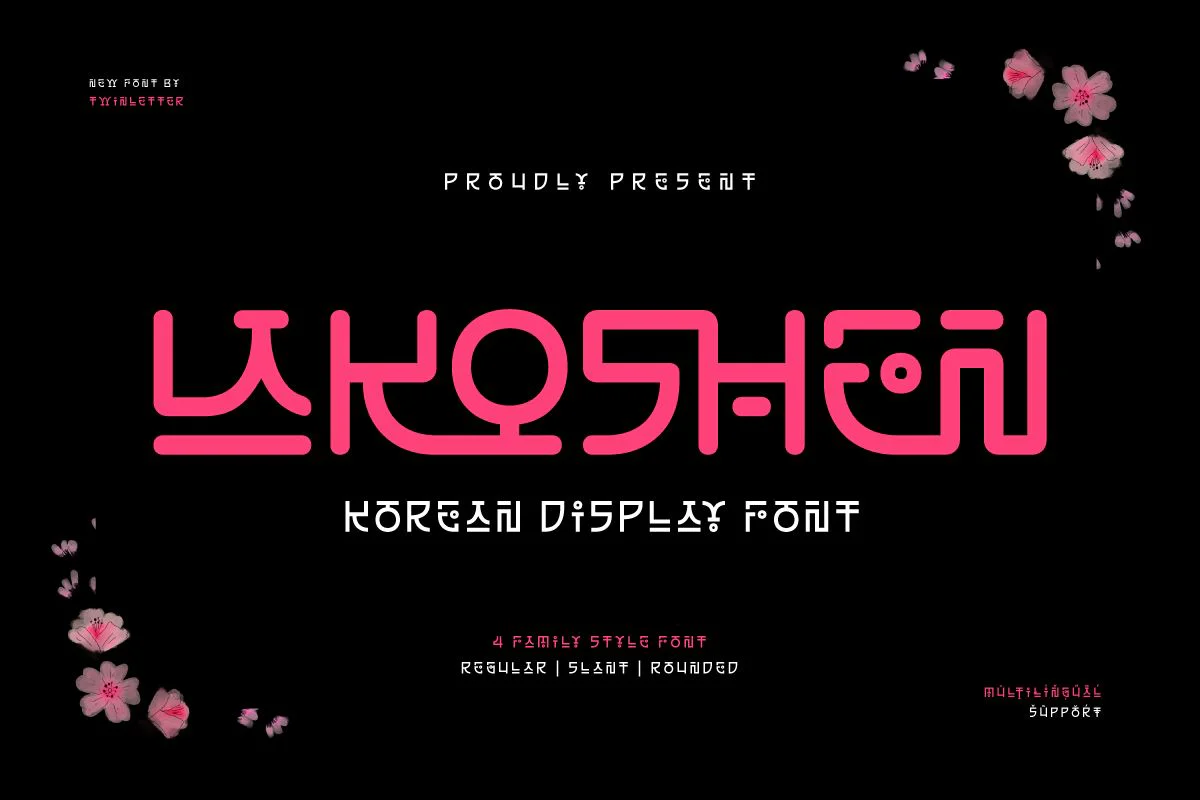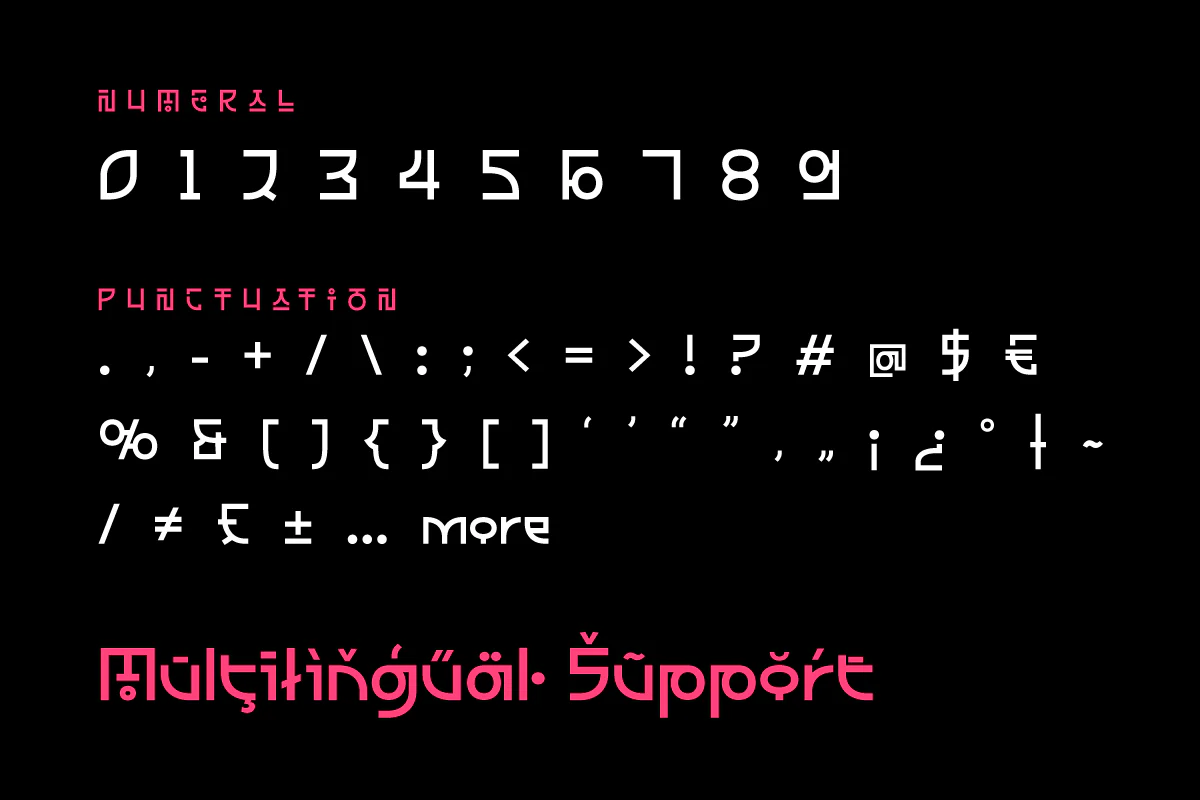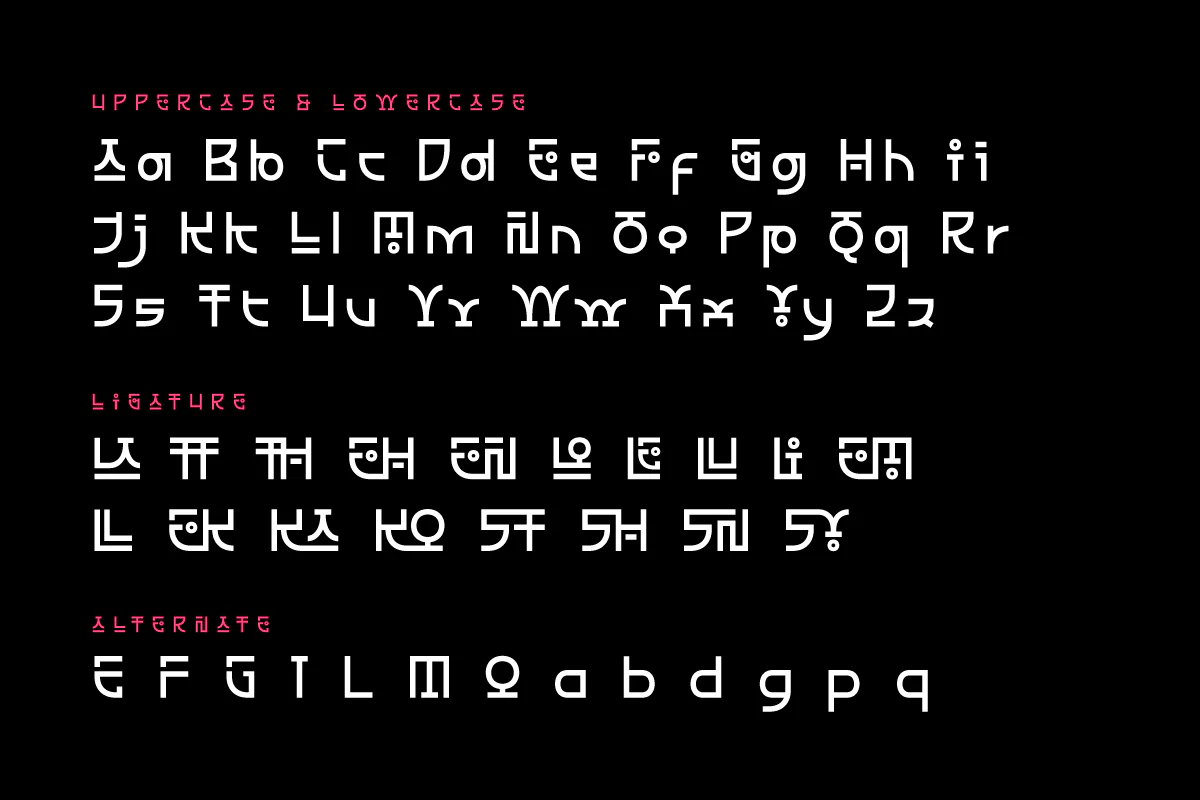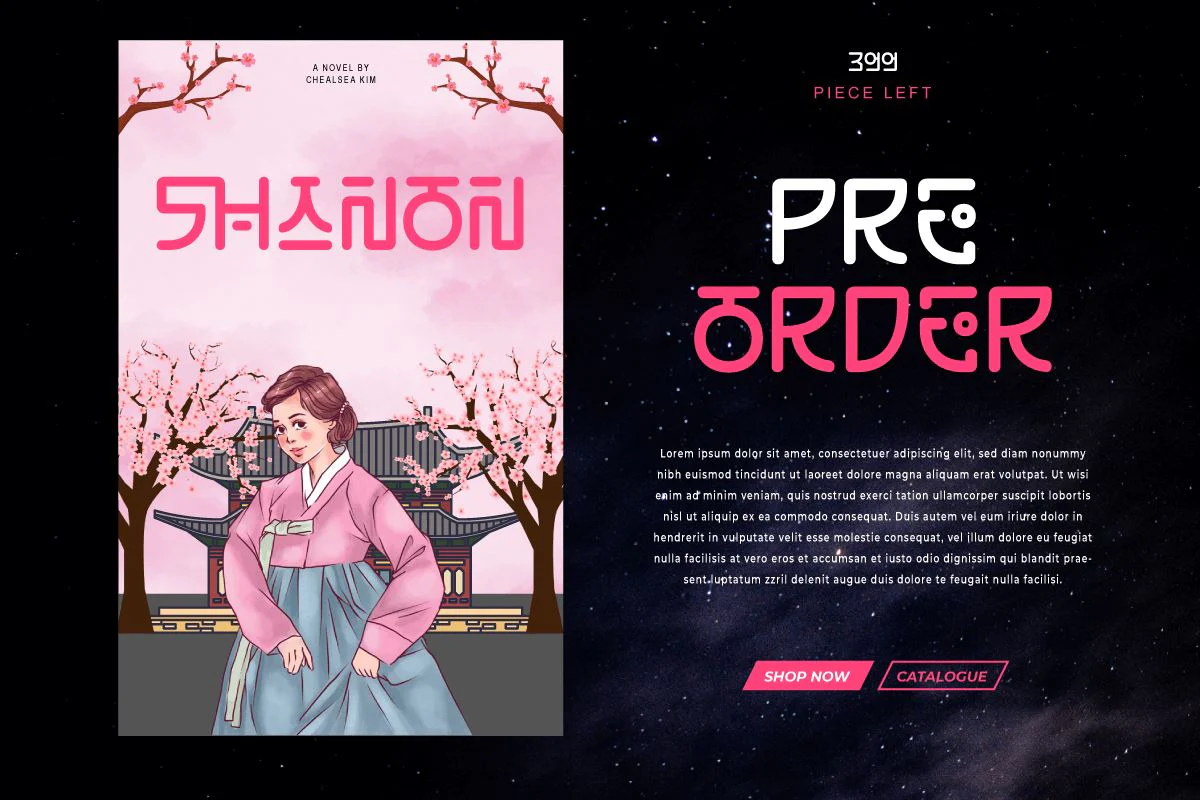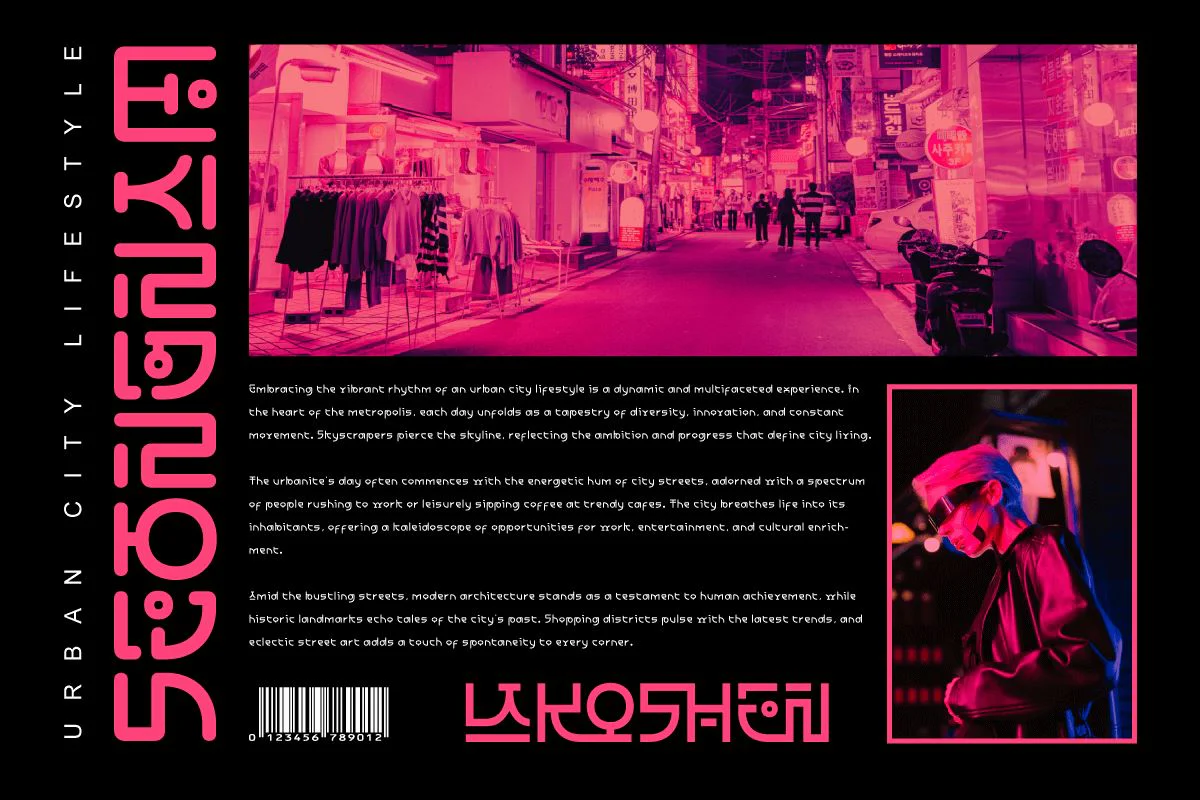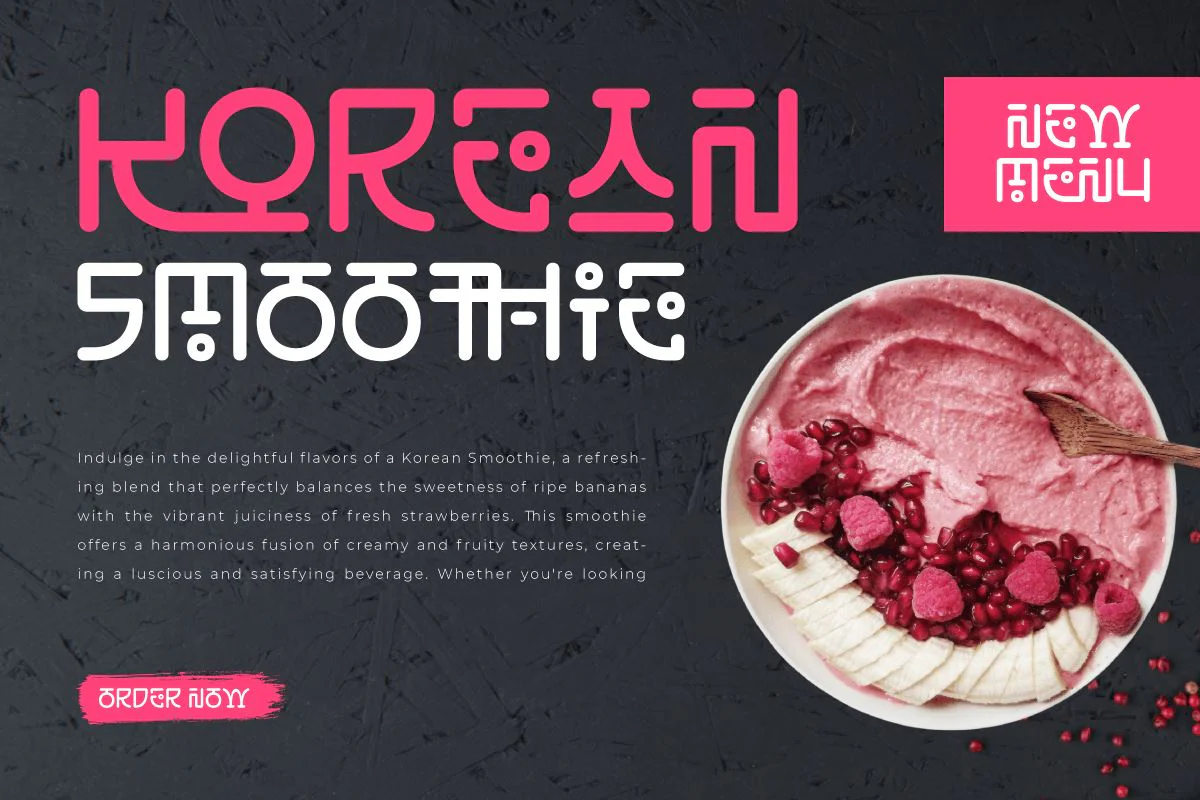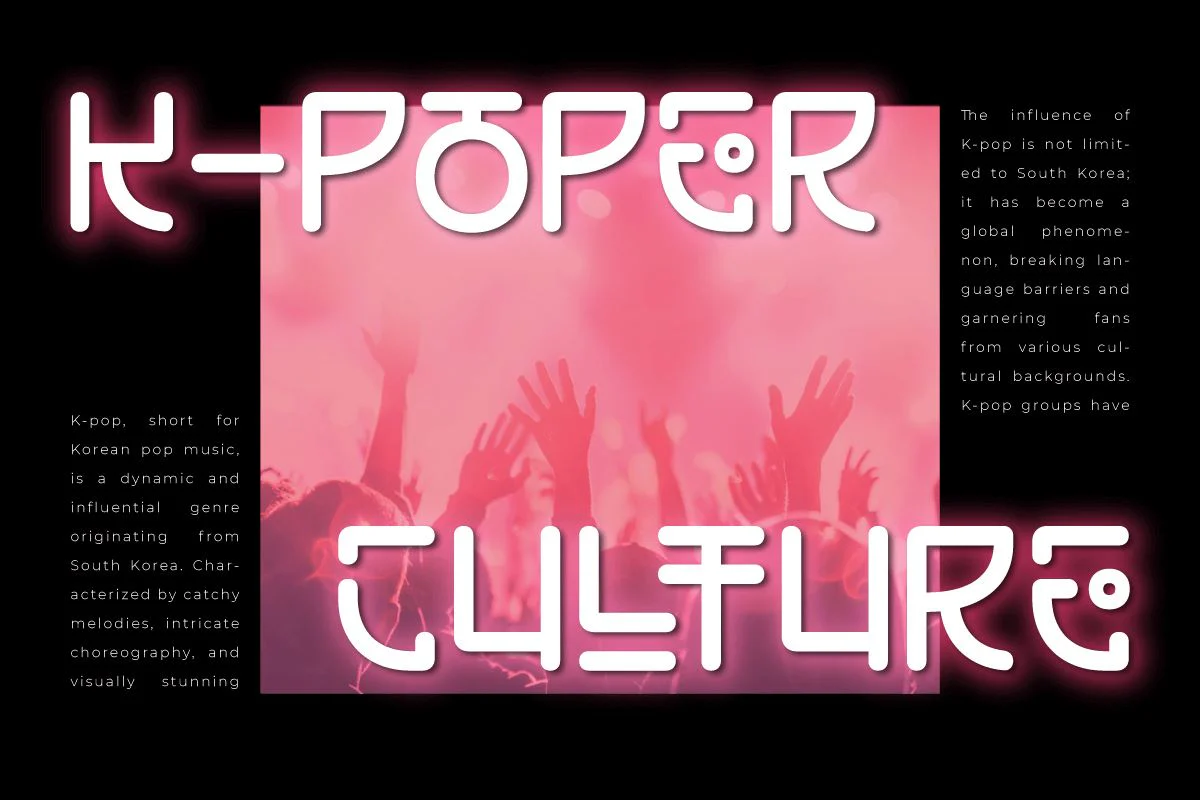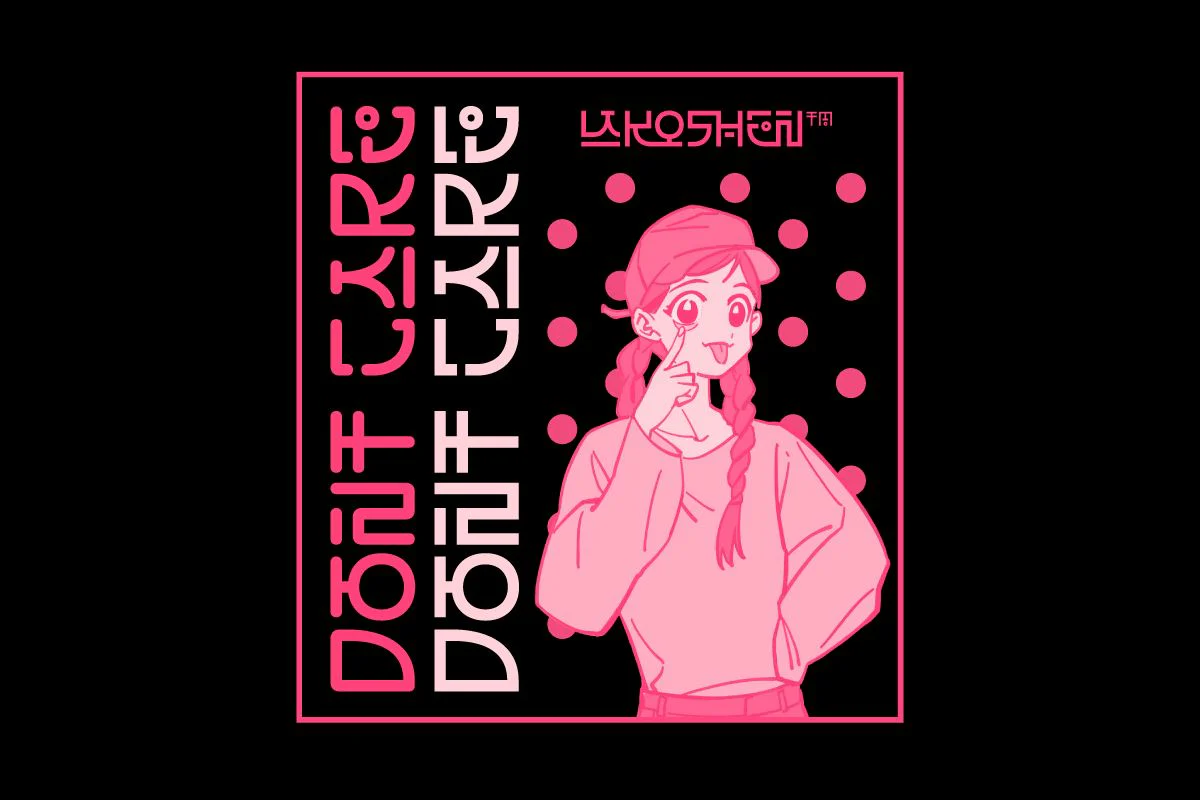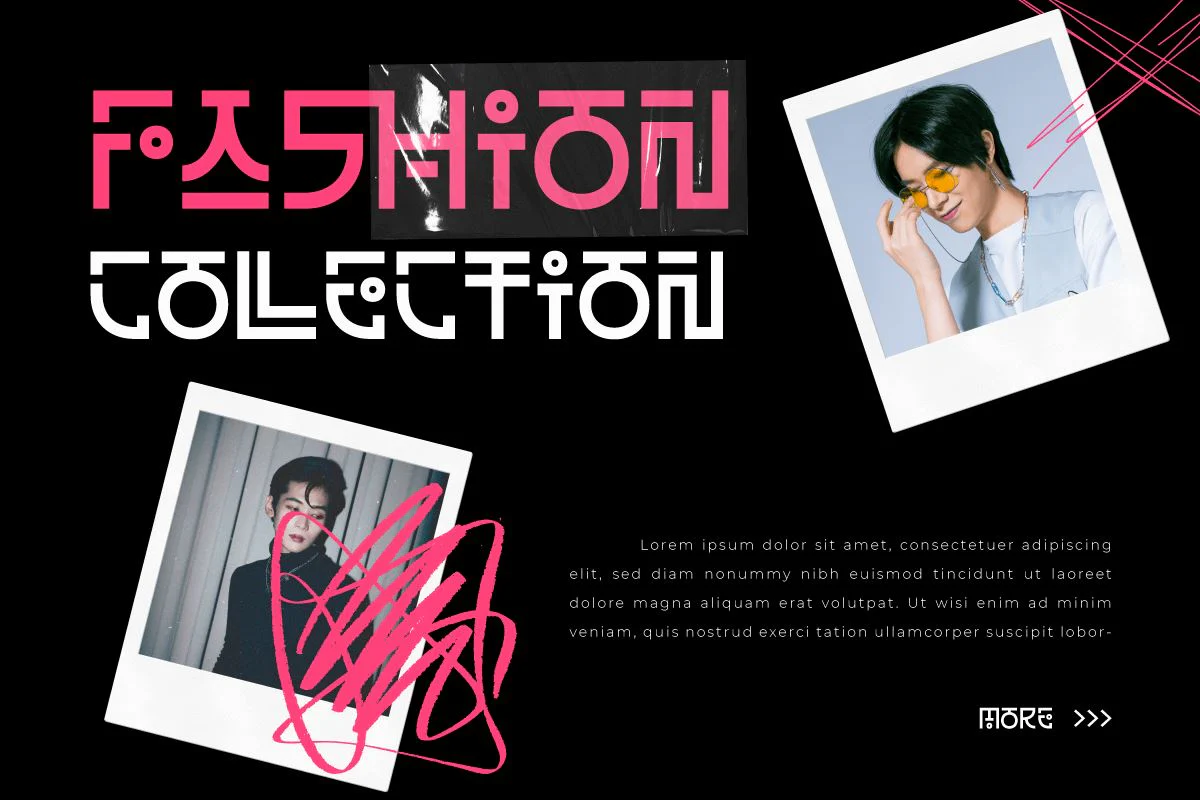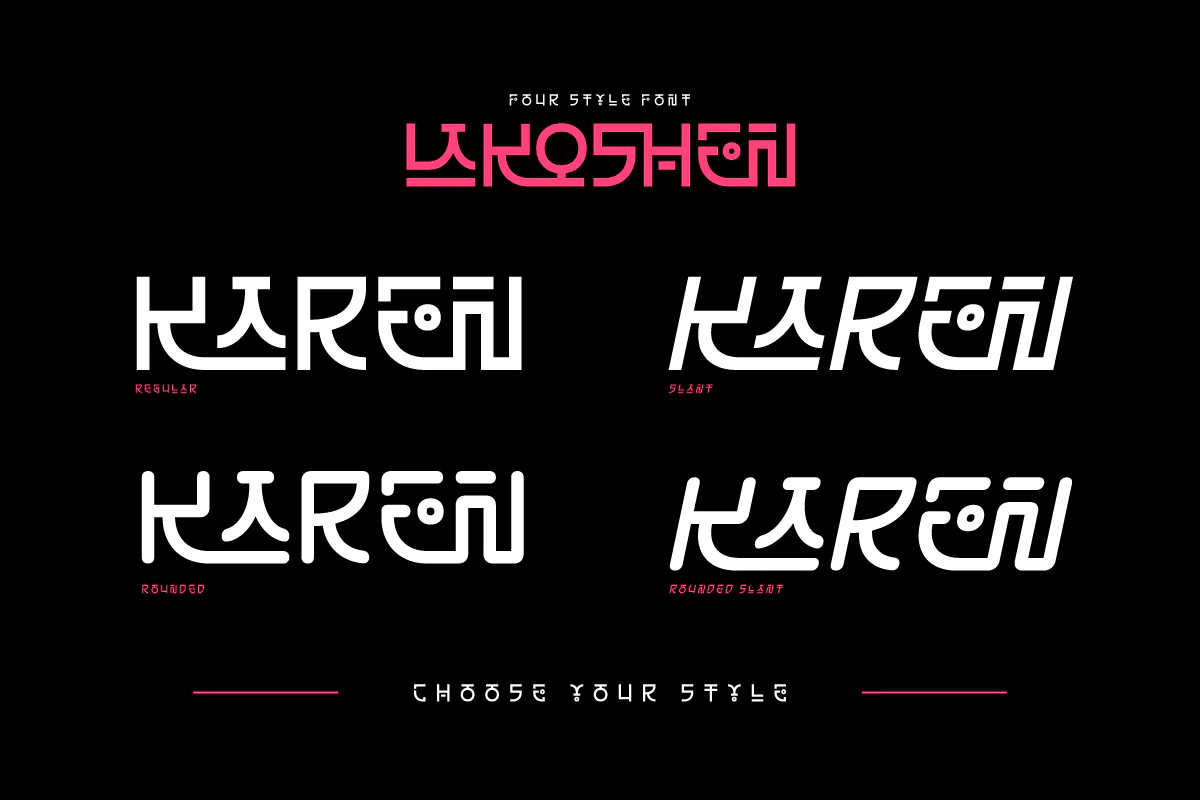
Lakoshen - Korean Style Font
Welcome to the world of Korean beauty with Lakoshen, a stunning and easy-to-read Korean-style font. Designed with delicate details and a traditional touch, each Lakoshen letter reflects the elegance of Korean culture's rich historical heritage.
Lakoshen presents the perfect combination of typographic clarity and beautiful Korean aesthetics. With a design that is easy to understand and learn, this font is suitable for branding projects, typography logos, special events, and more with a Korean theme.
Lakoshen's specialty is its ability to evoke an alluring and elegant Korean feel. Each letter depicts unique, charming Korean characters, providing a strong identity to your design projects.
With Lakoshen, bring Korean beauty into your every design. Let each letter represent the unparalleled elegance and charm of Korean culture, creating a work that not only amazes but also enlightens the soul.